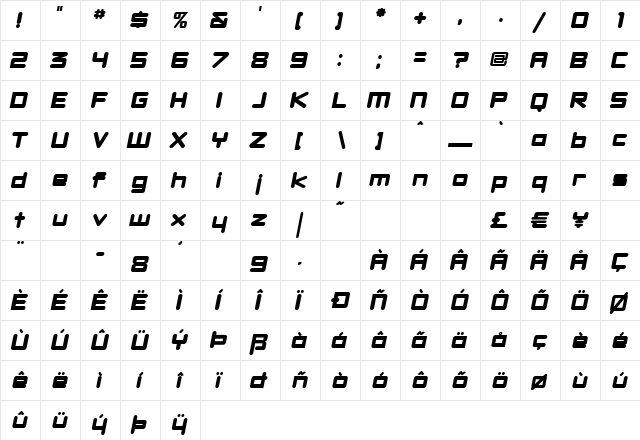
DBXLNightfever ExtraWideItalic Font Preview
DBXLNightfever ExtraWideItalic
Design Context for DBXLNightfever Typeface
DBXLNightfever is a composed and adaptable typeface that performs quietly and consistently across a wide range of design contexts. Its italic angle brings a sense of urgency and motion to the letterforms.
Pro Tip: Use DBXLNightfever for emphasis, pull quotes, and subheadings where its slanted energy can add rhythm to the layout.